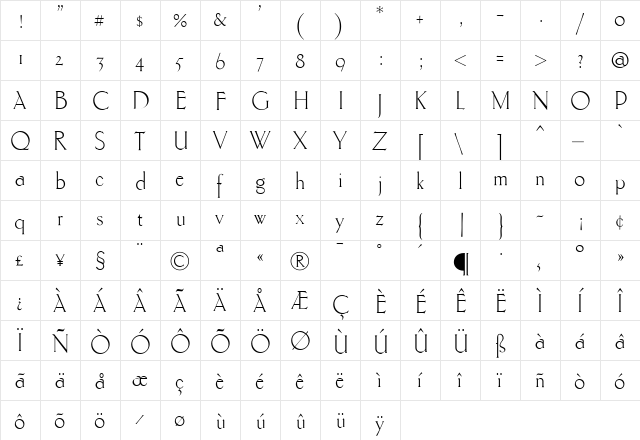
Ehmcke-HTF Medium
Design Context for Ehmcke-HTF Typeface
Ehmcke-HTF offers clean, dependable letterforms without strong stylistic allegiance, making it a practical choice for designers who need flexibility.